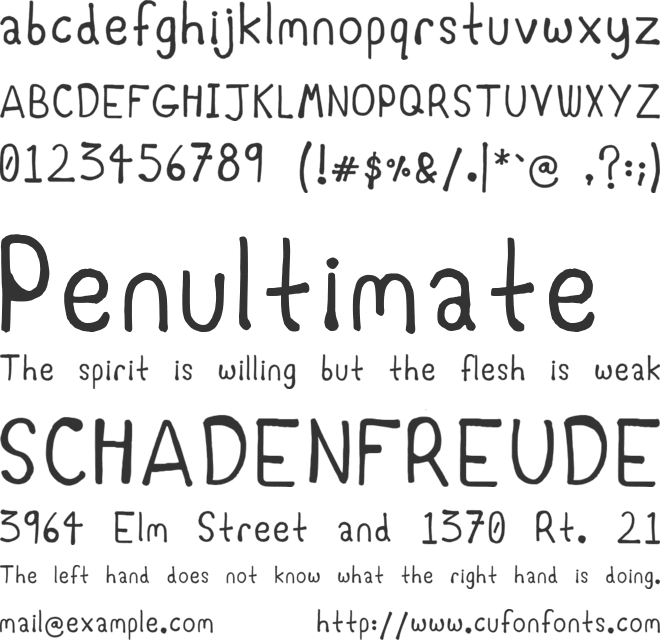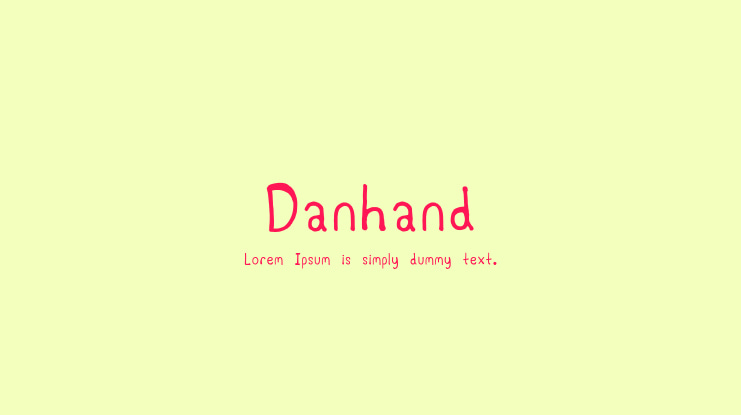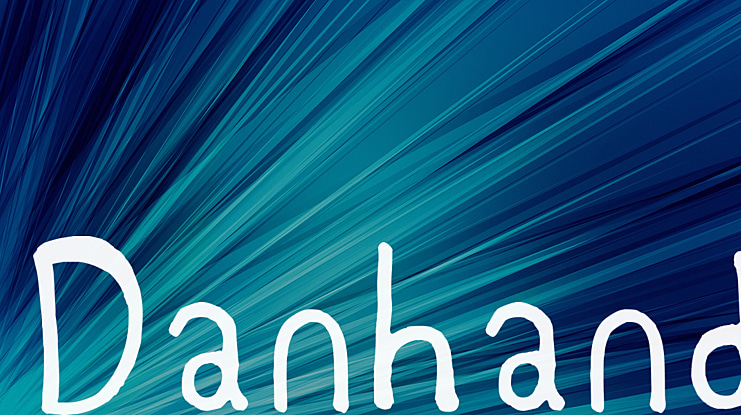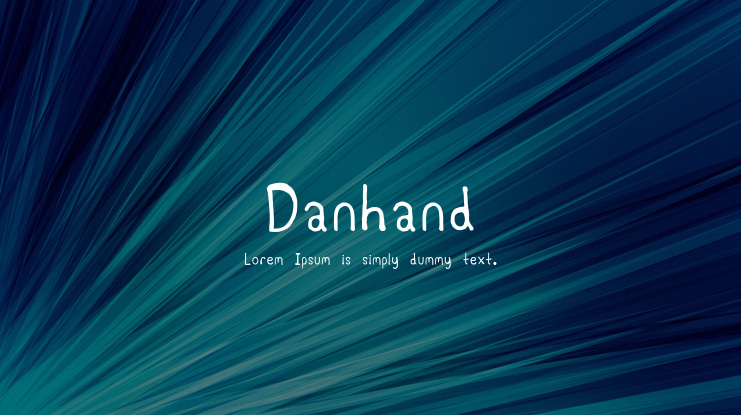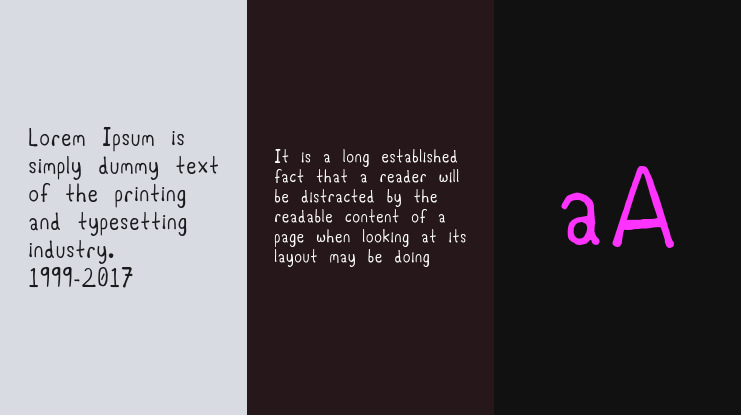
Danhand Font
Daniel Fowler
My first ever font based on my cartoony handwriting. 100% free. This might be expanded on or other versions might be made in the future. www.mintprinting.com.au